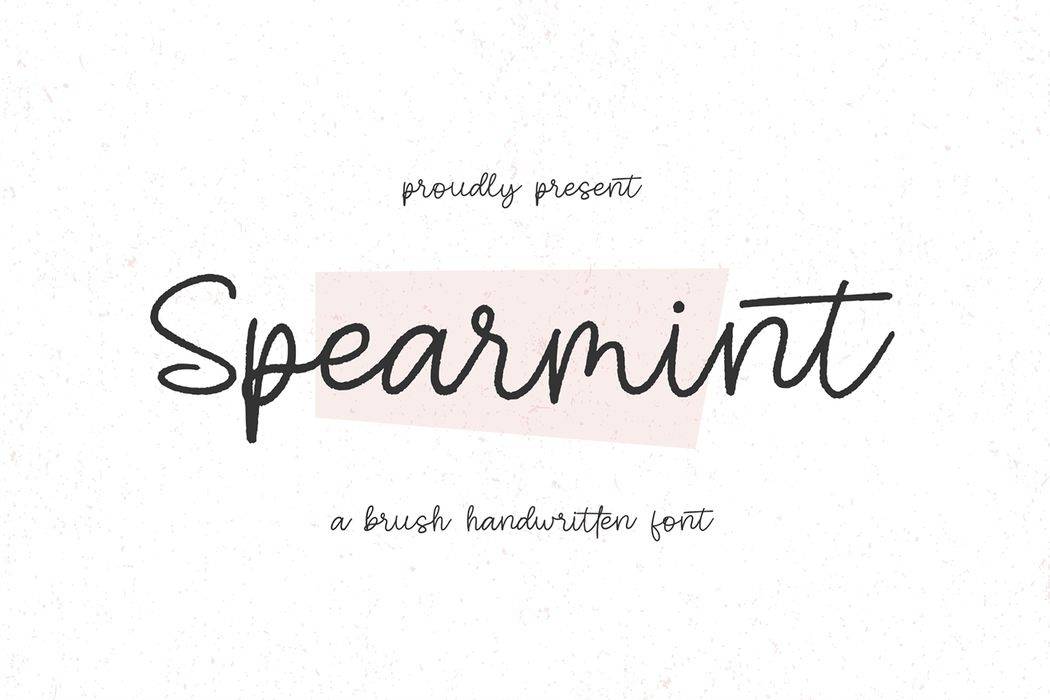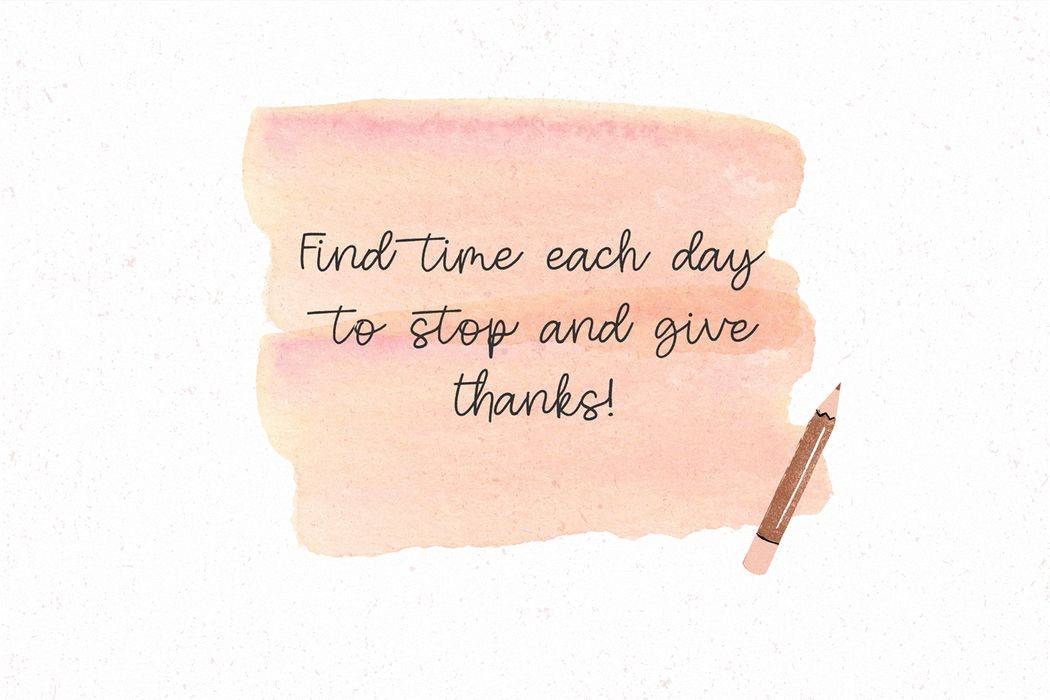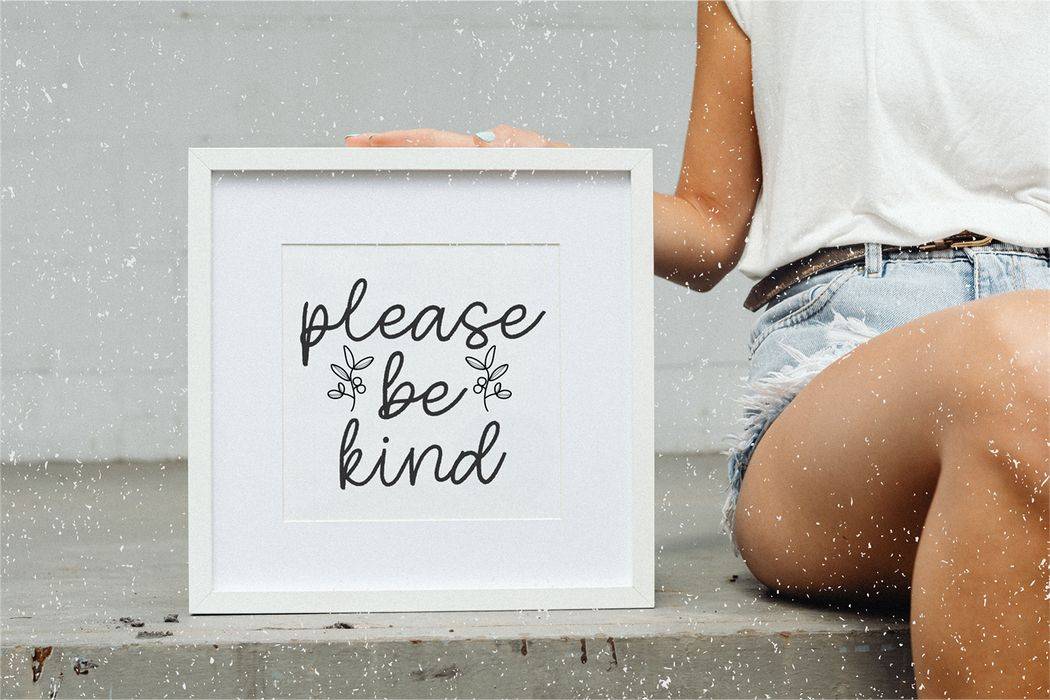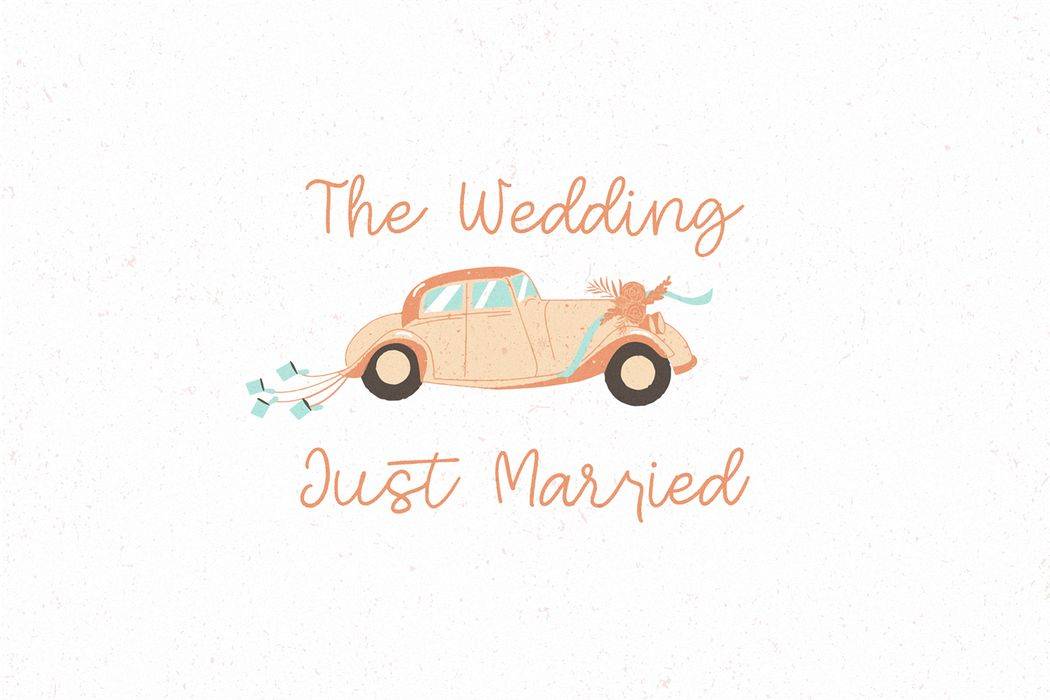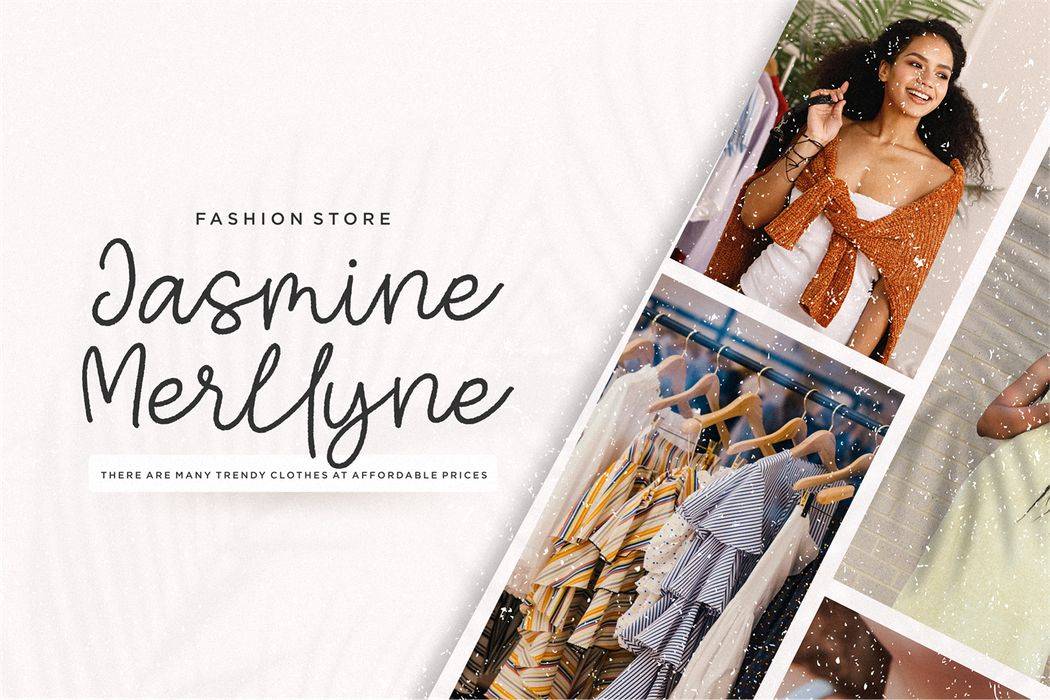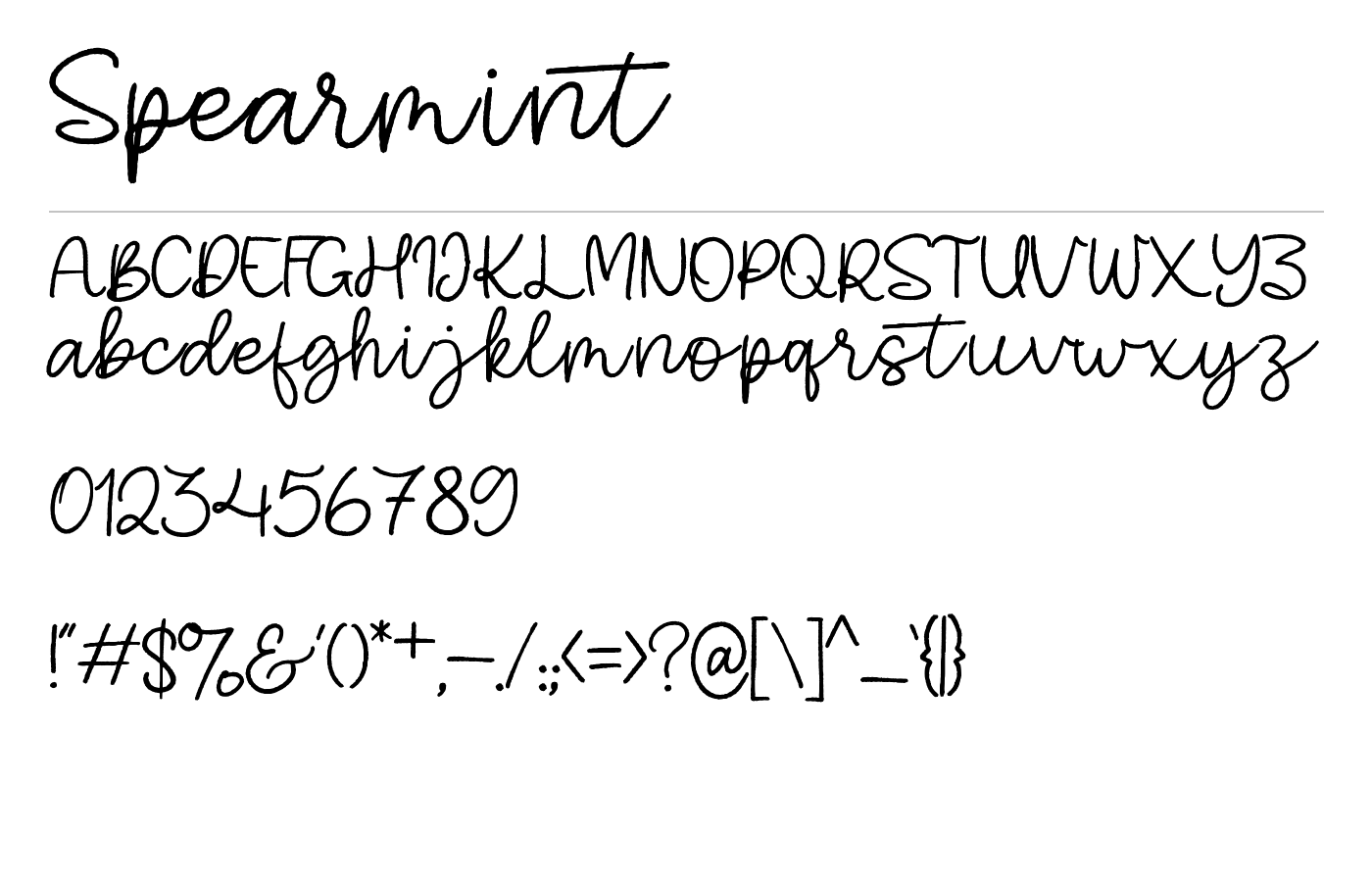
Spearmint is a playful, casual handwritten script font with a light weight and generous spacing that enhances its airy and approachable feel. Its slightly irregular, flowing letterforms and simple strokes make it perfect for personal, creative projects, invitations, and branding that aims for a friendly, informal vibe. This font works well where a human touch and warmth are desired, adding charm without sacrificing readability.
Spearmint Font
About Spearmint Font